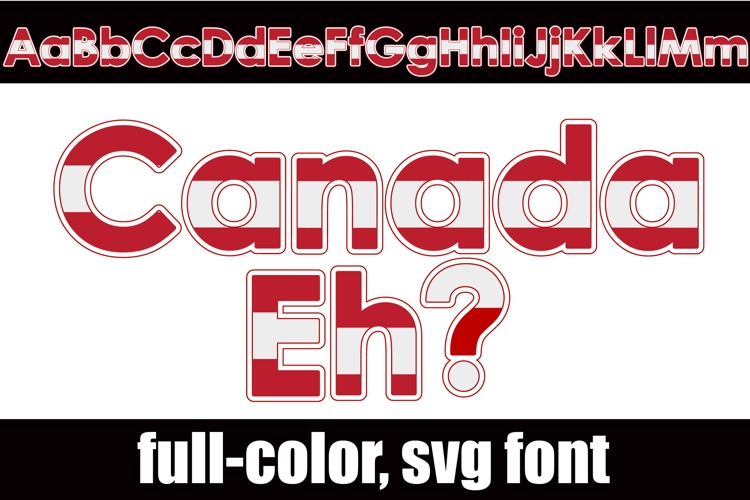
Canada Eh? Color Font
This full-color, sans serif font sports the red and white stripes of Canada's flag. There is an alt case of opposite colors of each letter that you can access through your system's character map.